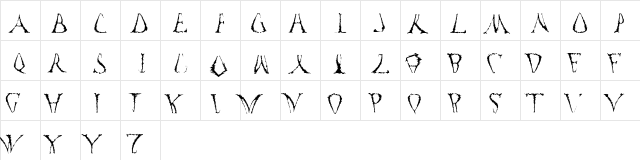
Funko Occelatus Regular Font Preview
Funko Occelatus Regular
Design Context for Funko Occelatus Typeface
Funko Occelatus has an approachable, lighthearted character — its loose, expressive forms are well-suited to children's content, casual branding, and fun-first design.
Font Pairing: Pairs well with a rounded or humanist sans for body copy, maintaining the friendly tone without relying on Funko Occelatus to carry extended reading.
Pro Tip: Use Funko Occelatus at larger display sizes where its expressive character can land. Pair with a clean, simple sans for body copy to maintain readability.